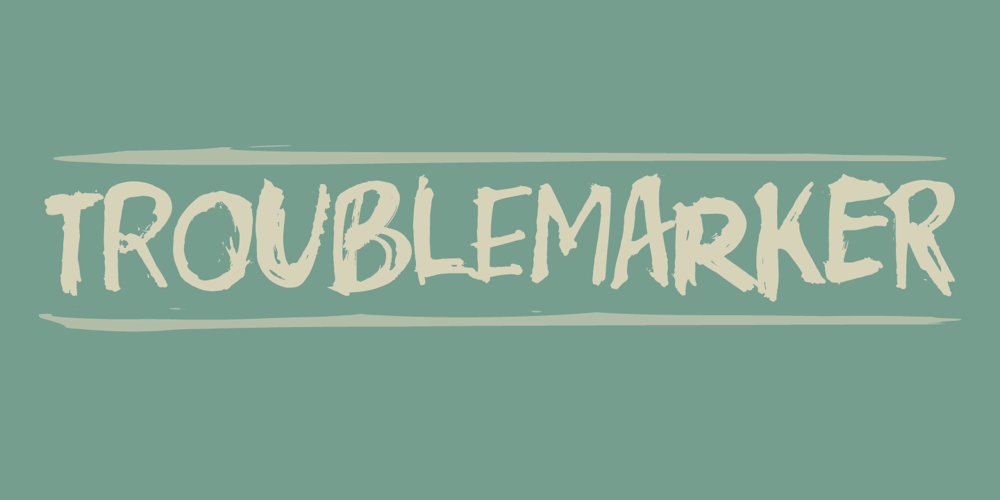
Troublemarker Font Family was designed by Jakob Fischer and published by PizzaDude.dk. Troublemarker contains 1 styles and family package options. Real trouble is going to hit you with this font! In fact, you most like didn’t know what hit you! Perhaps one of the 5 different versions of each letter?! Well, these cycles automatically as you type! Besides all the trouble, Troublemarker has got extensive language support!